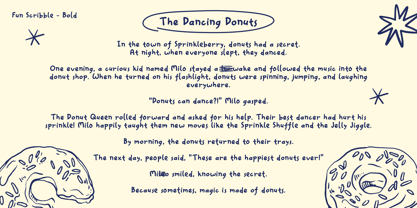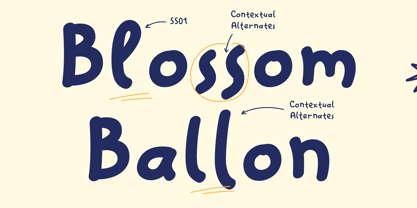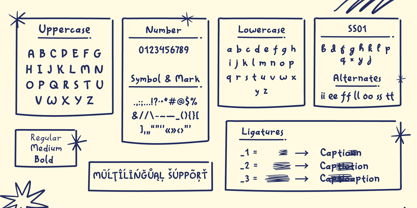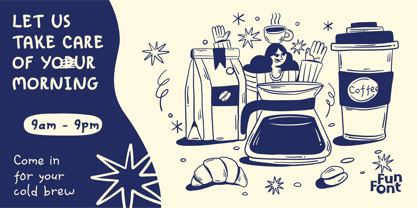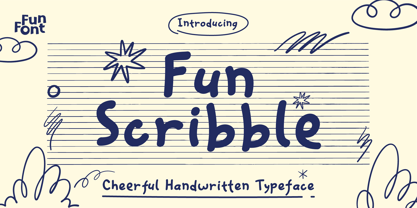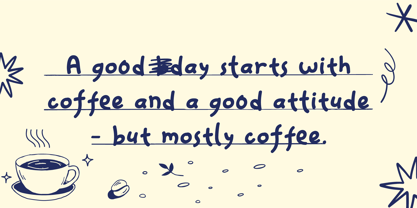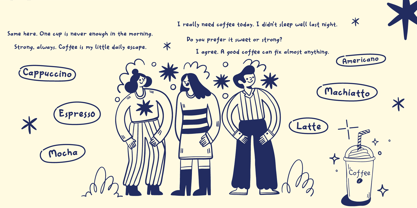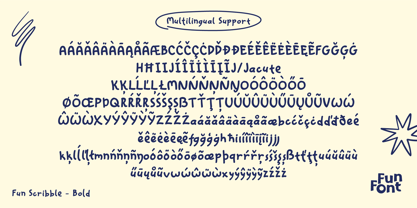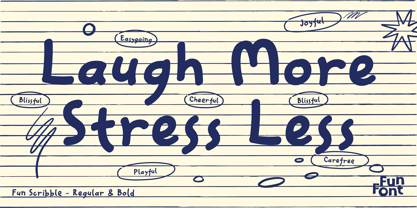
Fun Scribble
by FunFont
The Fun Scribble Font Family was designed by Dhian Tri Antono and published by FunFont. Fun Scribble contains 3 styles and family package options. More about this family
Fun Scribble is a rough, sketch-inspired handwritten font that celebrates spontaneity, creativity, and authentic expression. Inspired by doodles, notebook sketches, and freehand drawing, it features irregular strokes, playful shapes, and natural imperfections that give every word a lively, handcrafted feel. Rather than aiming for polished precision, Fun Scribble embraces the energy of the creative process itself. Ideal for kids' branding, educational materials, posters, packaging, social media, and playful designs, it adds warmth and personality to any project. Available in professional font formats, Fun Scribble is perfect for designers seeking expressive, fun, and genuinely human typography.